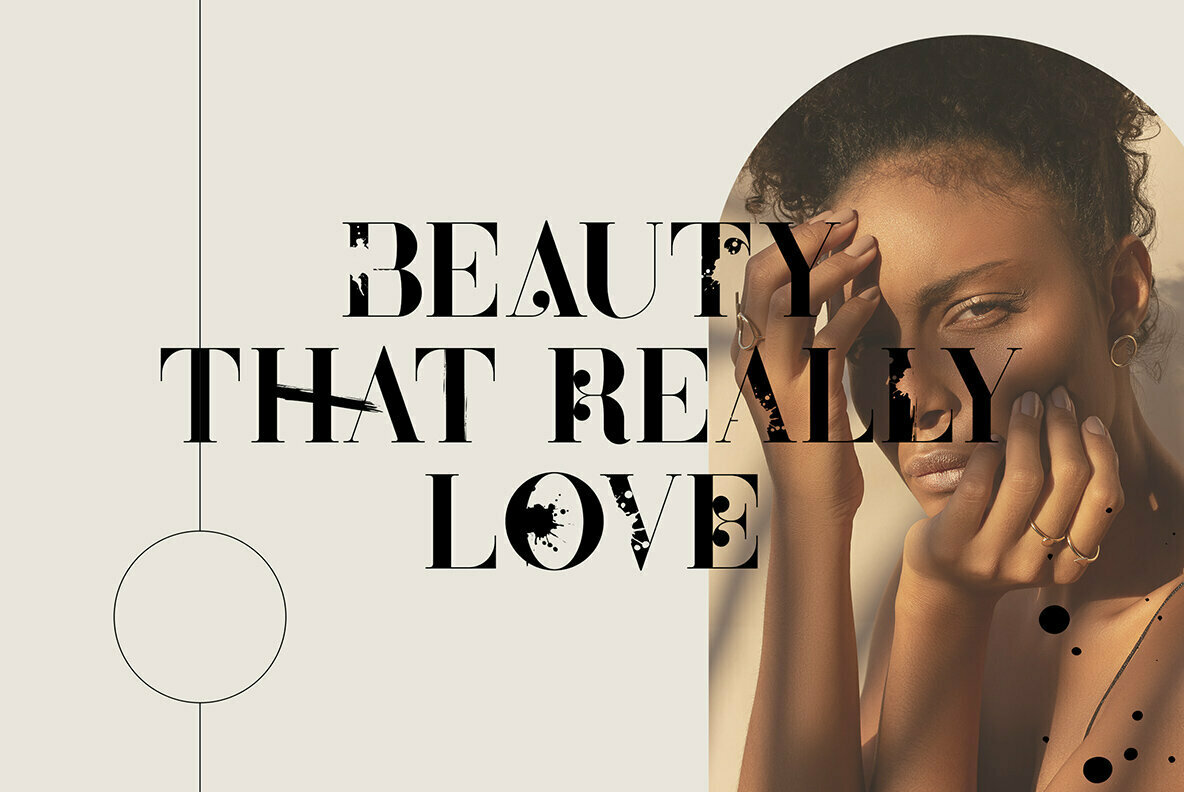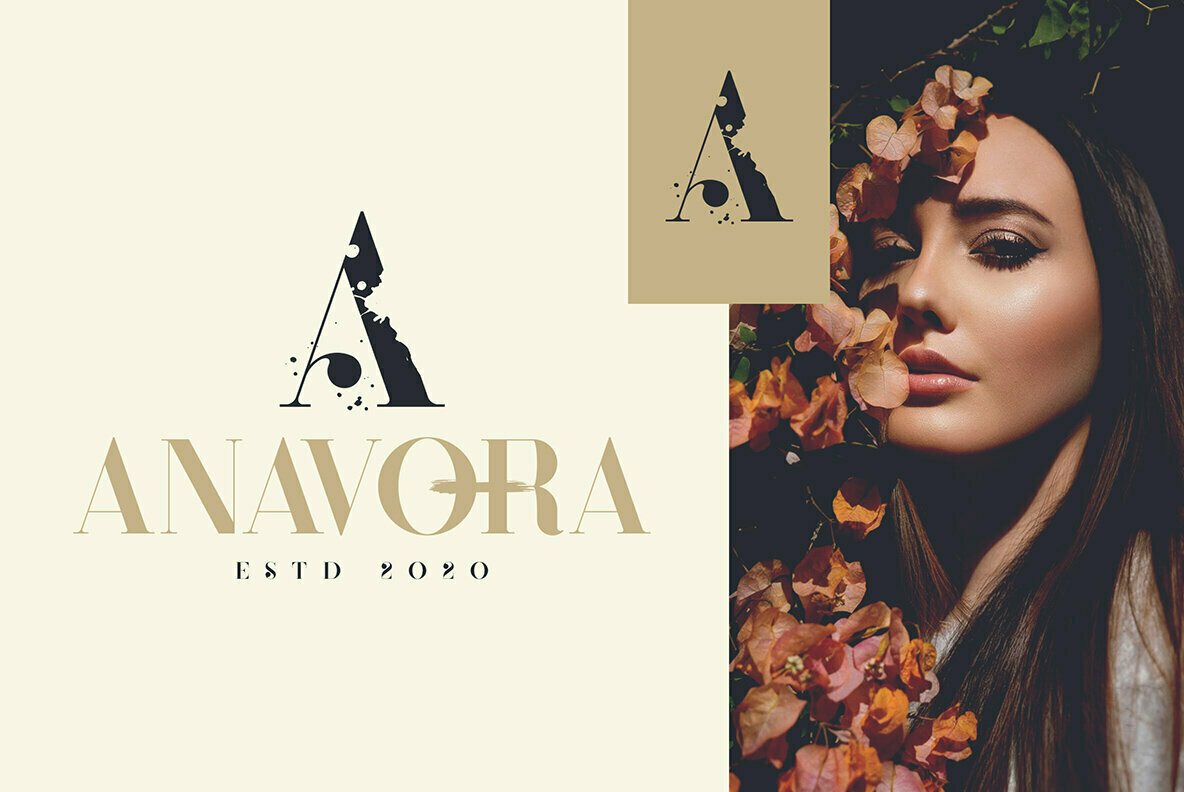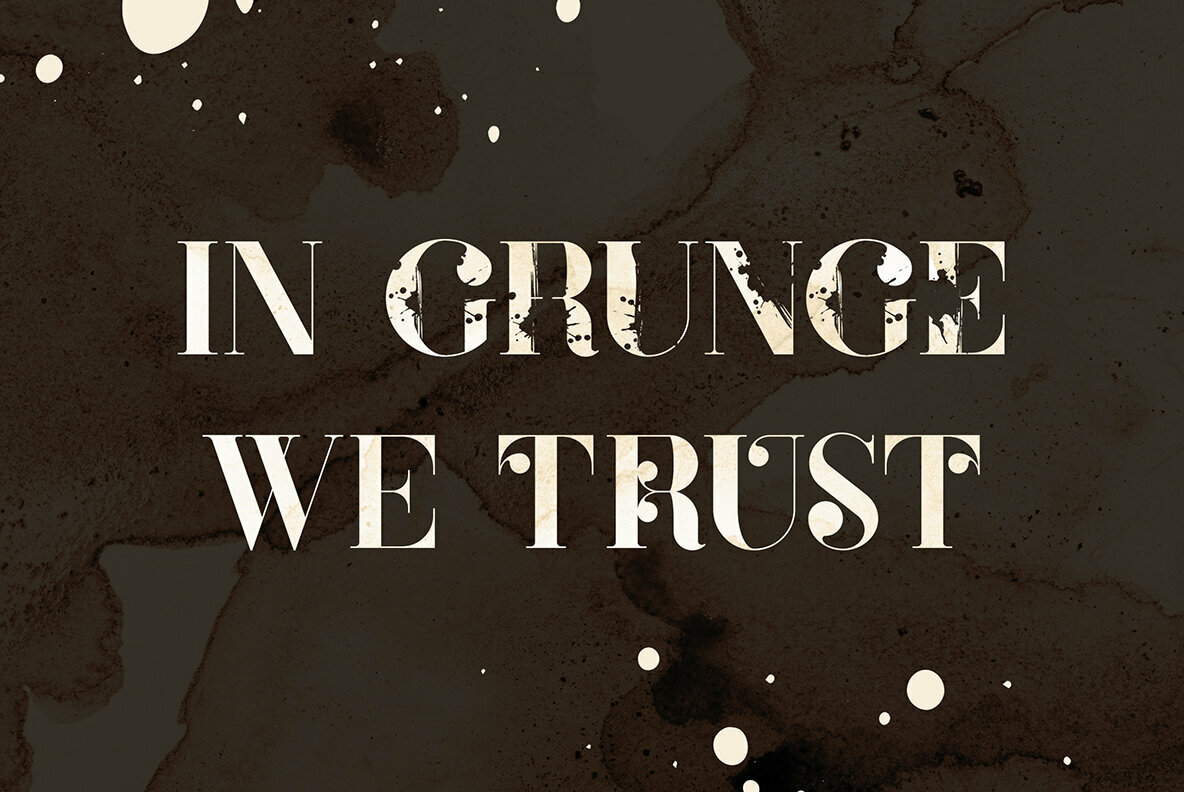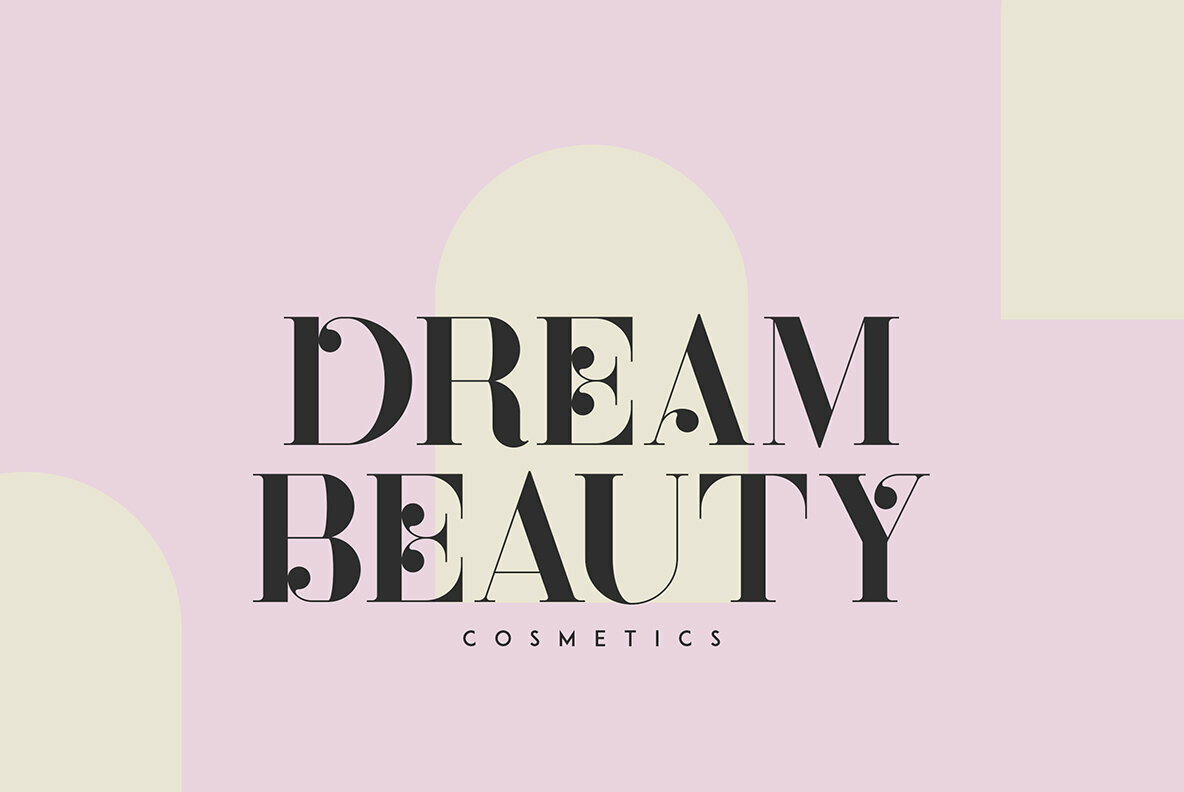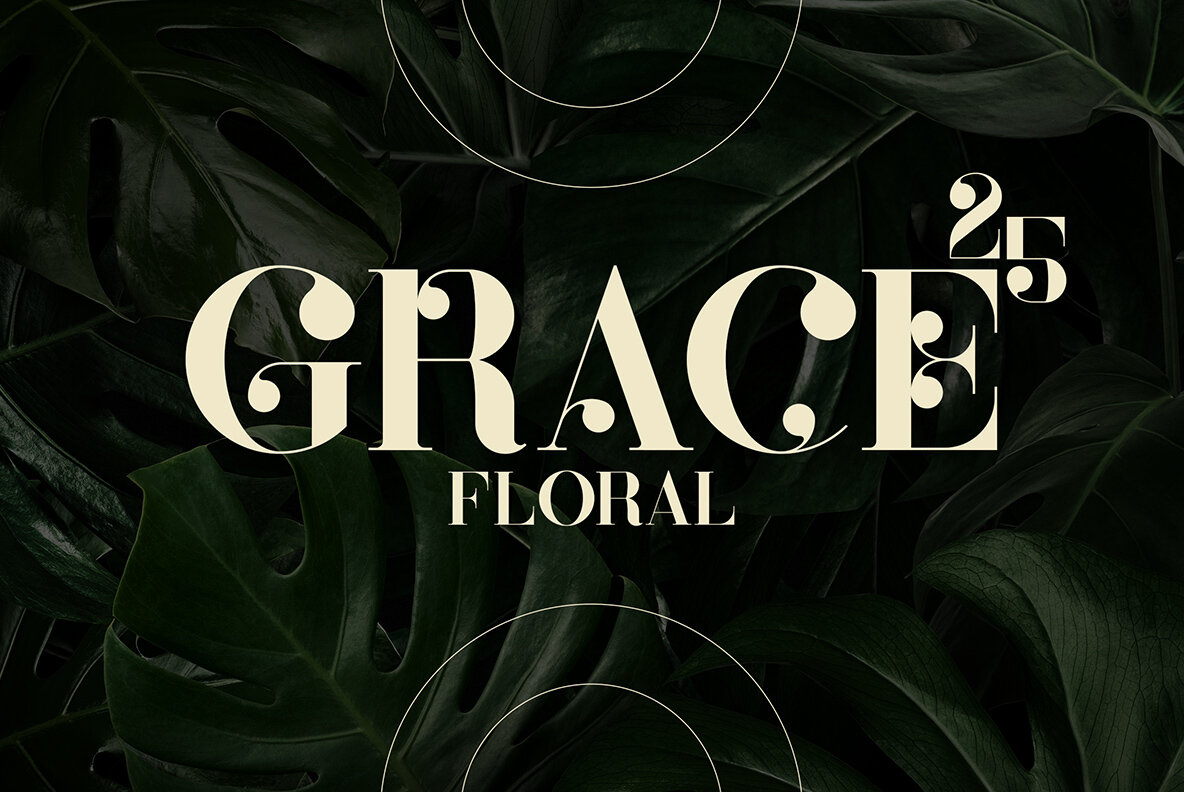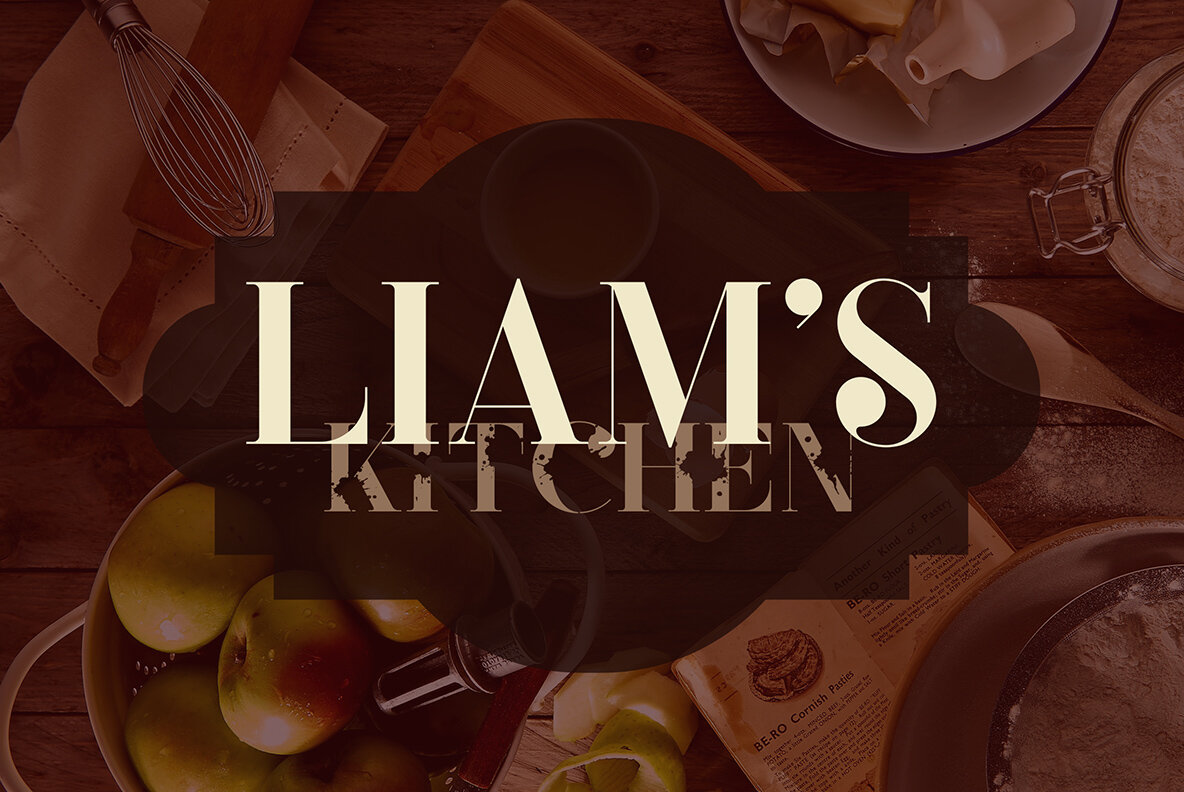
Defect Font
Defect is elegant and grunge font loaded with ligature glyphs, alternates, ornaments and multilingual support to enchant your next project. Very versatile fonts that works great in large and small sizes.
Defect is perfect for branding projects, home-ware designs, product packaging, magazine headers - or simply as a stylish text overlay to any background image.
- Uppercase, Lowercase, Numeral, Punctuation & Symbol
- Ligature glyphs
- Ornaments
- Multilingual support